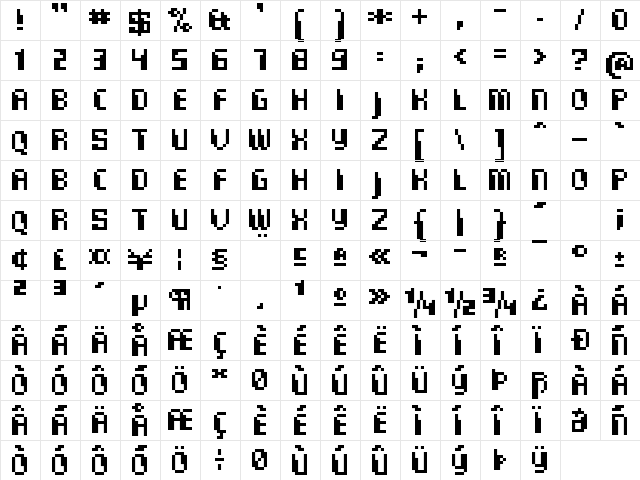
Commo Regular Font Preview
Commo Regular Regular
Commo Regular Font Details
Design Context for Commo Regular Typeface
Commo Regular is a composed and adaptable typeface that performs quietly and consistently across a wide range of design contexts.